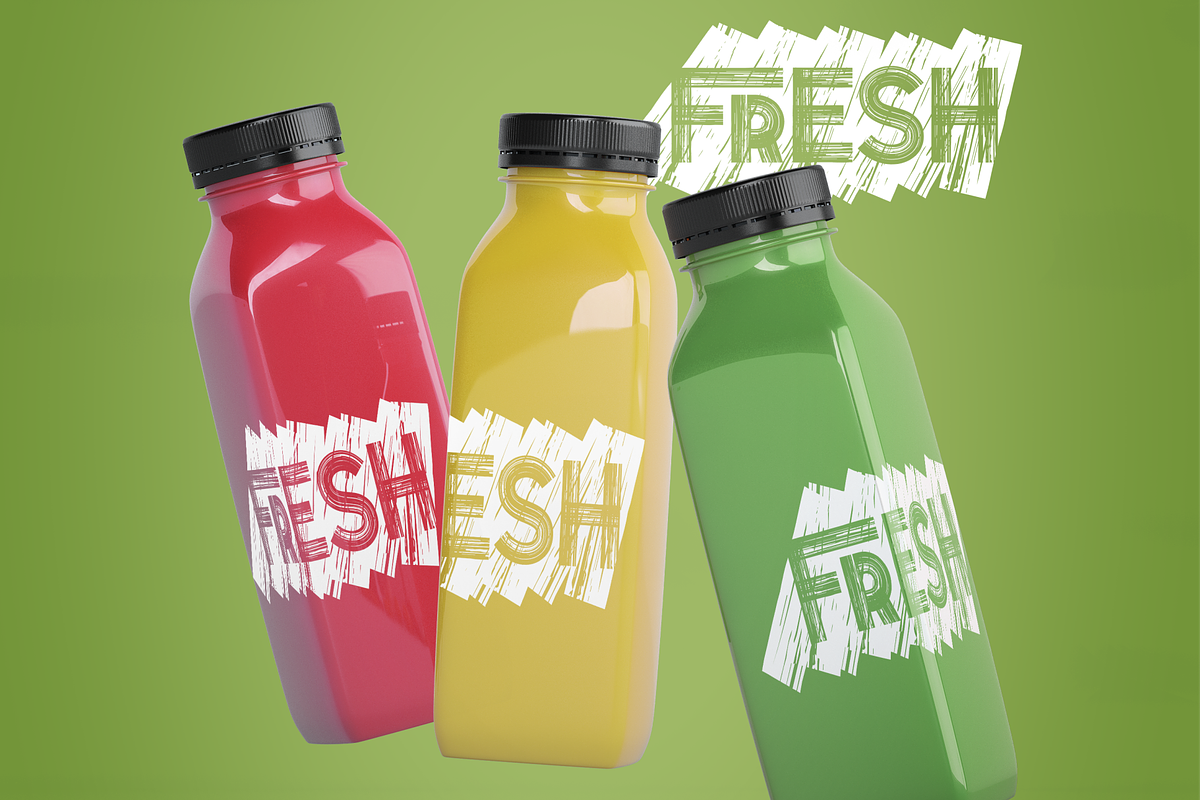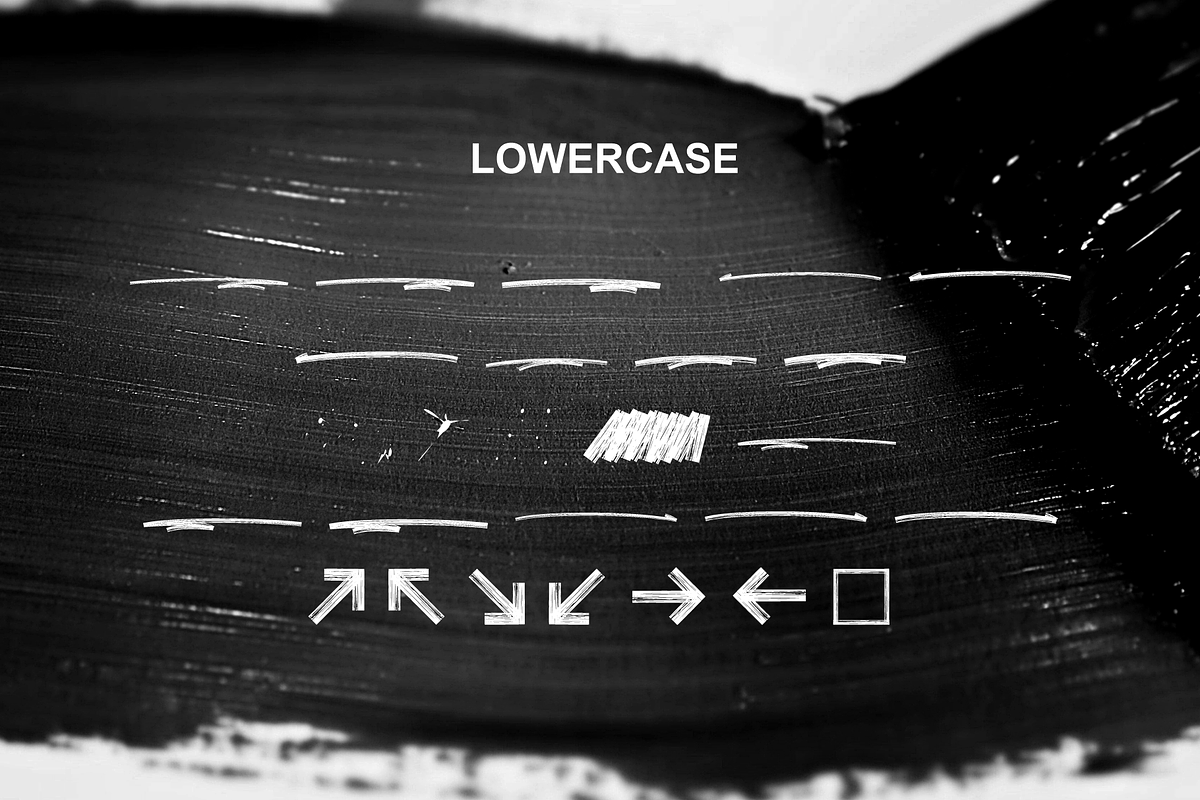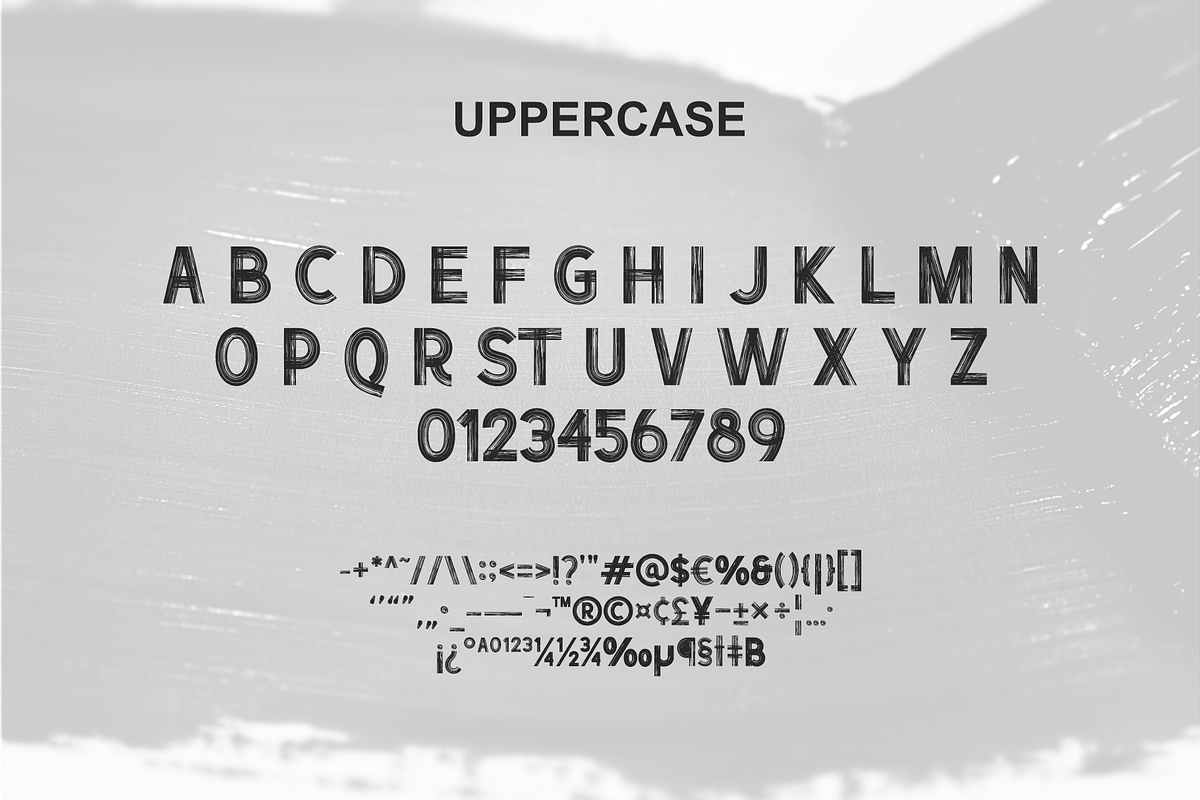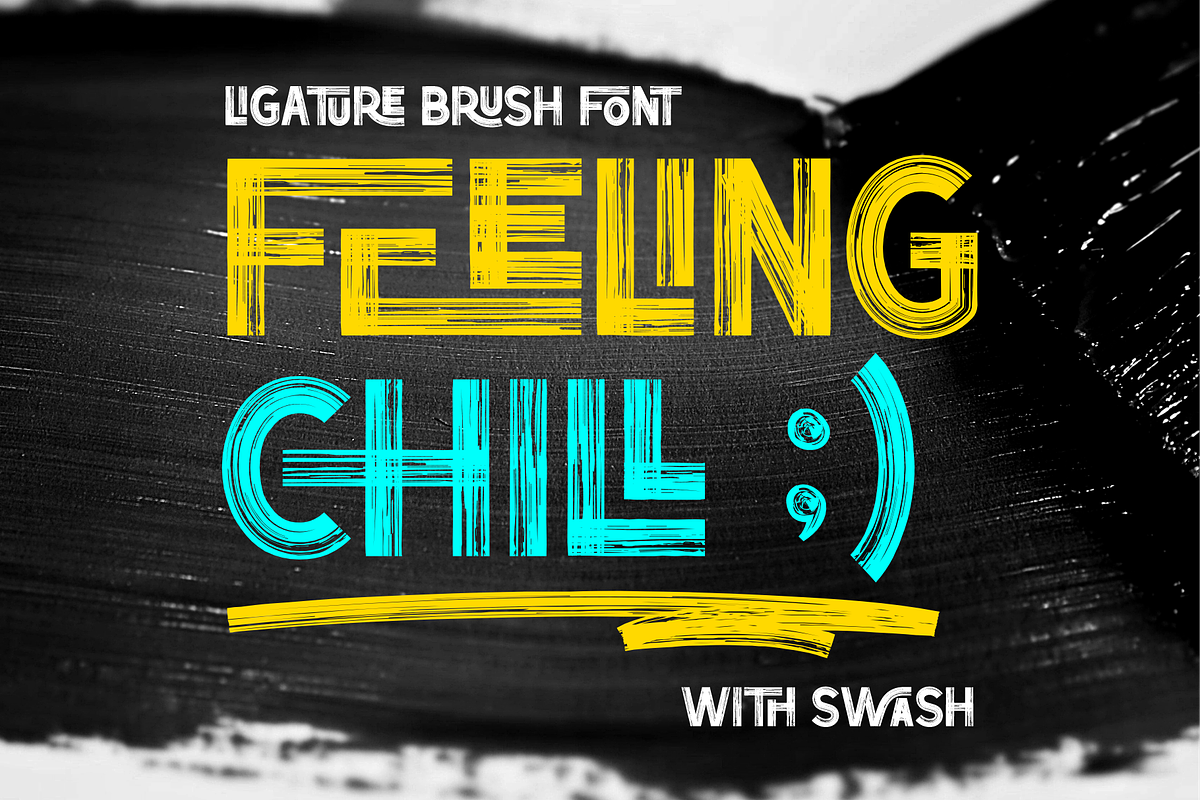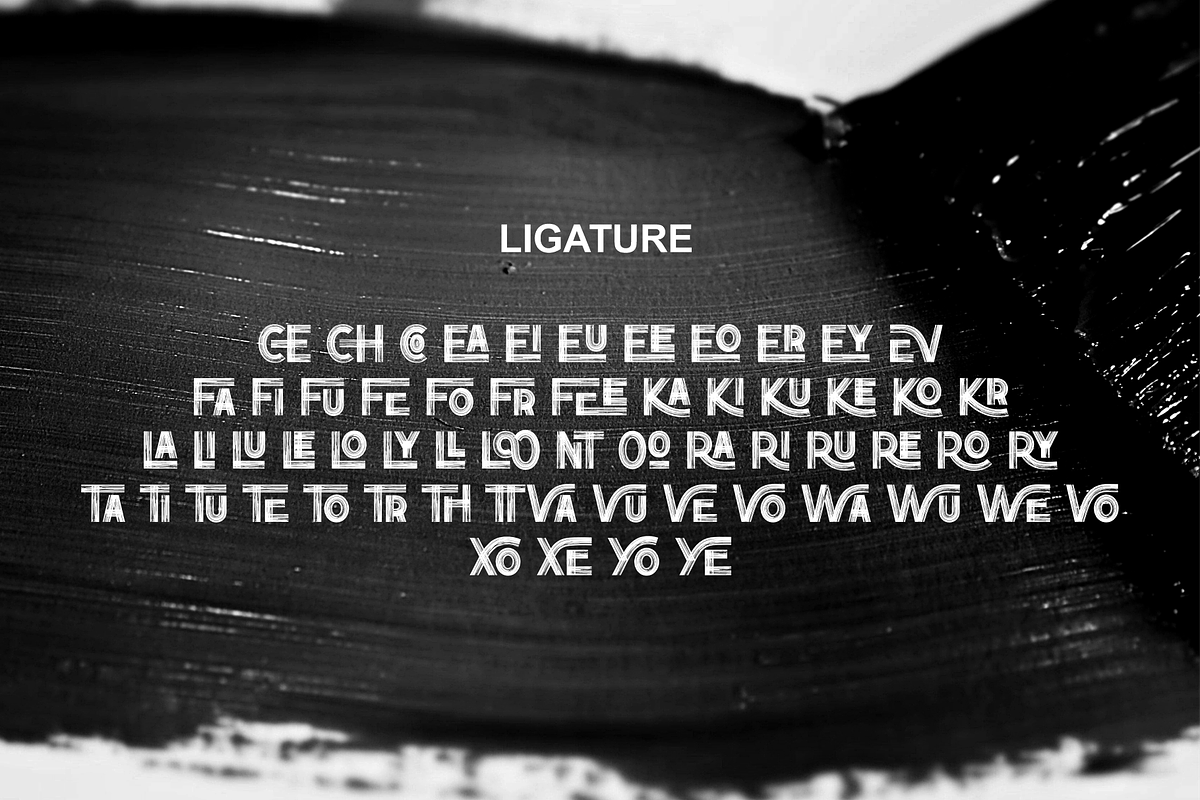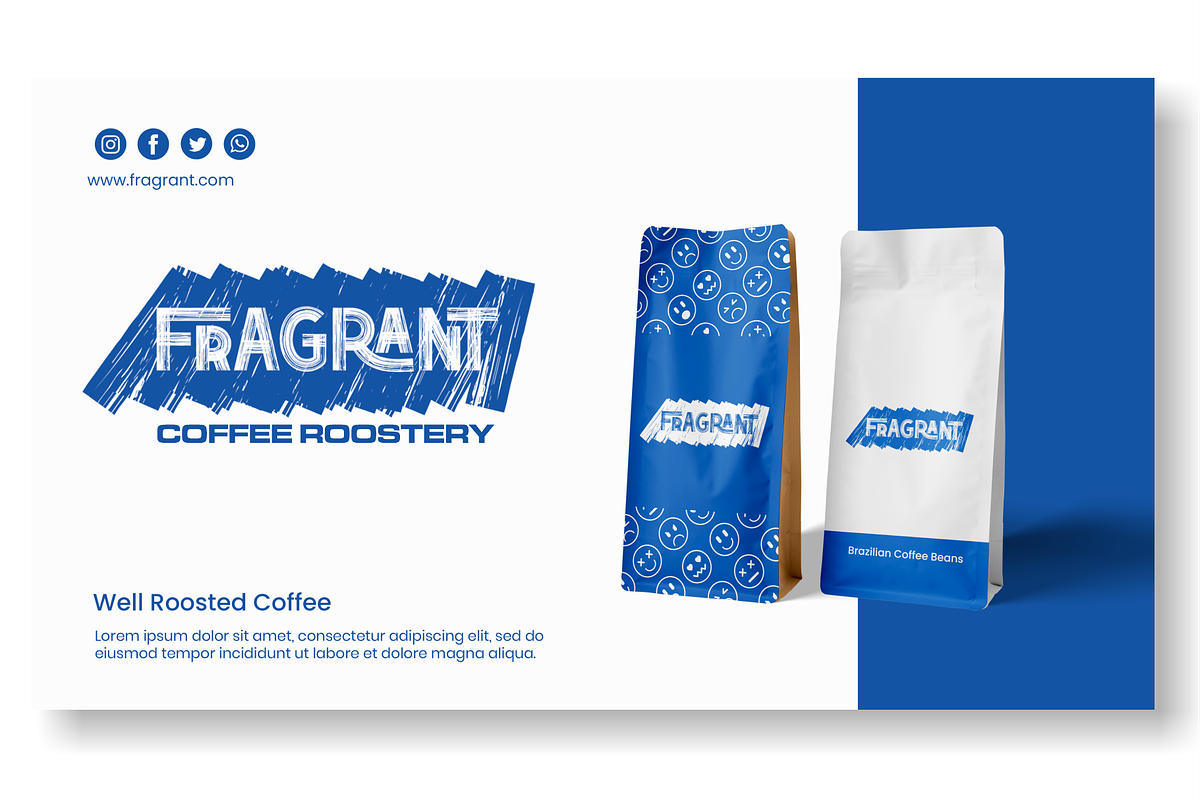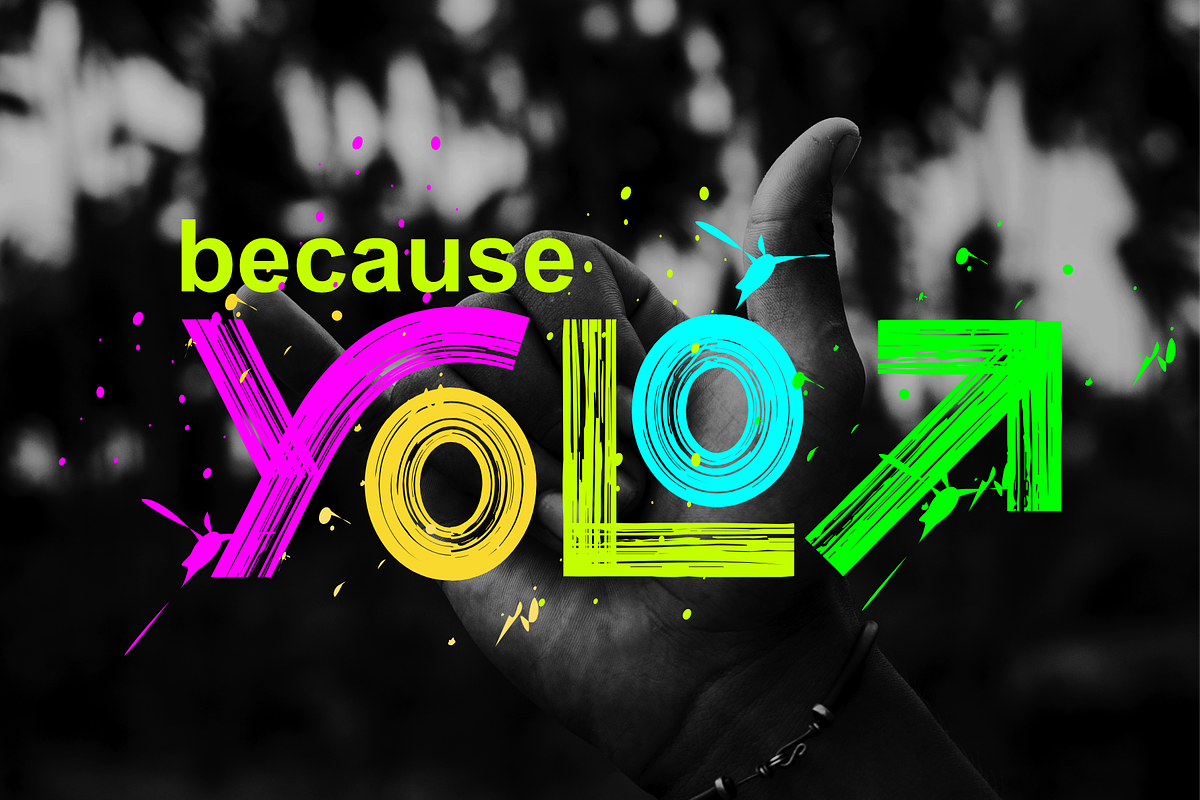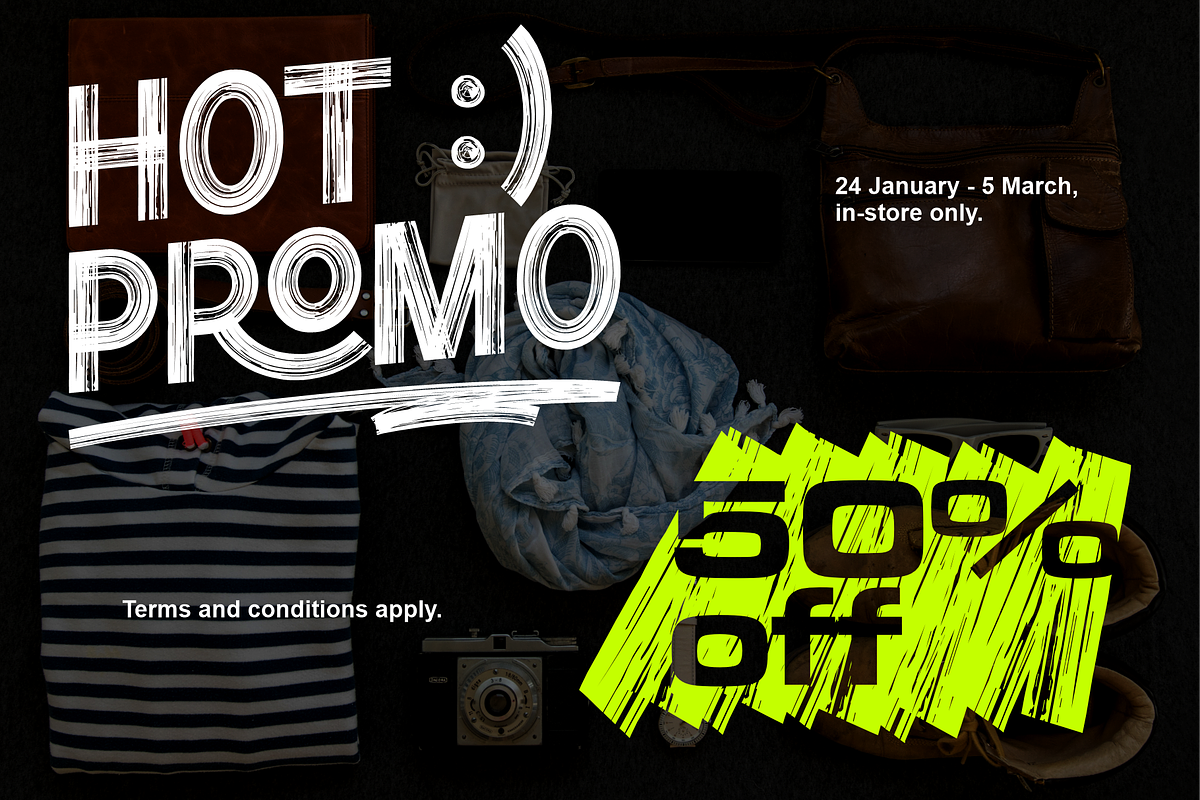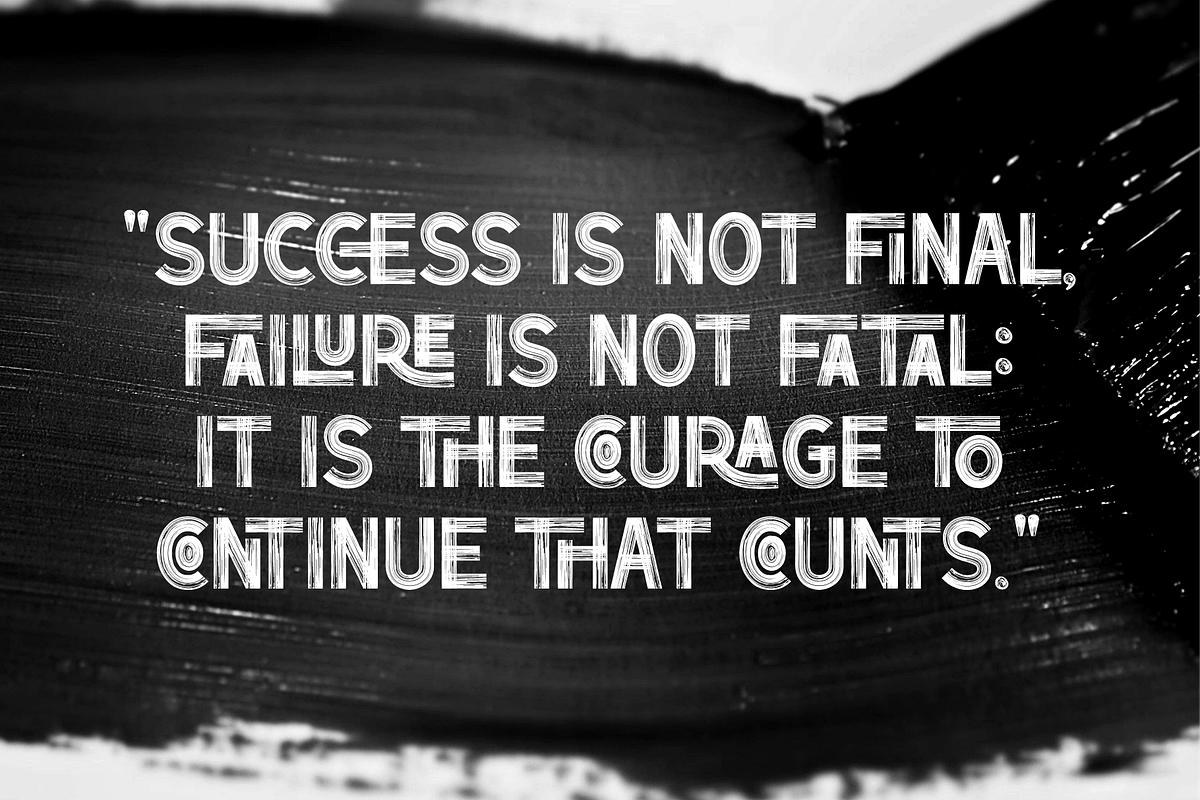
FEELING CHILL MODERN BRUSH FONT
Introducing Feeling Chill - a captivating modern brush sans serif font designed to breathe life into your creative projects. With smooth brush strokes and a contemporary flair, this font exudes elegance and versatility, making it perfect for logos, branding, headlines, and more. The inclusion of ligatures and swashes adds an artistic touch, creating visually appealing compositions that leave a lasting impact on your audience. Unlock the potential of your designs with "Feeling Chill" - a font that seamlessly blends modern aesthetics with timeless charm, empowering you to craft stunning, stand-out creations. Embrace the chill vibe and infuse your work with creativity and sophistication. Get ready to impress with Feeling Chill!